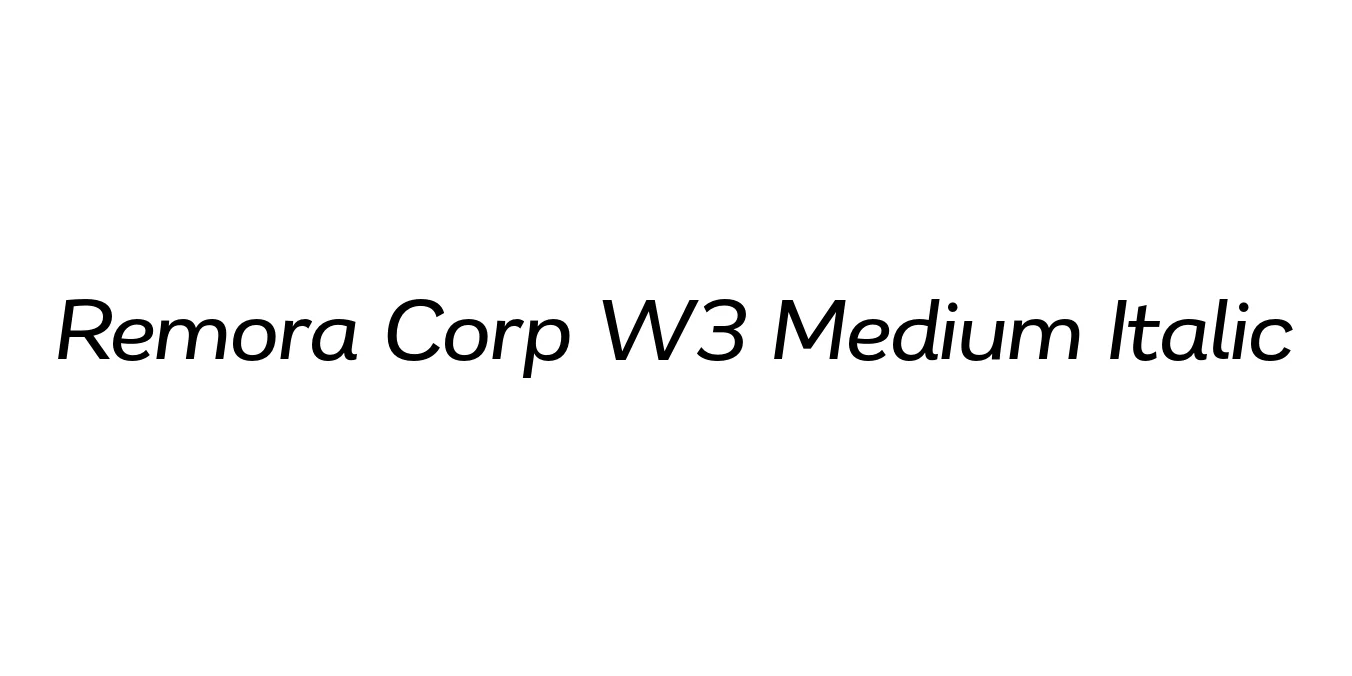
Remora Corp W3 Medium Italic
Designed by Nick Cooke
Remora Corp W3 Medium Italic is a distinguished member of the extensive Remora superfamily, meticulously crafted by Nick Cooke of G-Type. The Remora collection is uniquely categorized into two stylistic branches: Remora Sans and Remora Corp. While the Sans variant offers a humanist feel, the Corp variant, featuring the W3 Medium Italic, is designed with a more geometric and business-oriented structure. This typeface is built to provide a clean, modern aesthetic that communicates reliability and professional authority.
The W3 Medium Italic weight serves as a versatile middle ground, offering enough visual weight for subheadings while remaining legible for specialized body text. Its italicized form is not merely a slanted version of the upright but a carefully drawn style that introduces a dynamic rhythm to the page. This makes it particularly effective for editorial design, corporate reports, and complex branding projects where clarity and a sophisticated tone are paramount.
Remora Corp W3 Medium Italic Best Uses
Ideal for business logos, professional stationery, and brand guidelines.
Perfect for subheadings, pull quotes, and highlighting key information in magazines.
Excellent for clean UI elements and professional blog headings.
Adds a sophisticated and modern touch to brochures, flyers, and advertising campaigns.